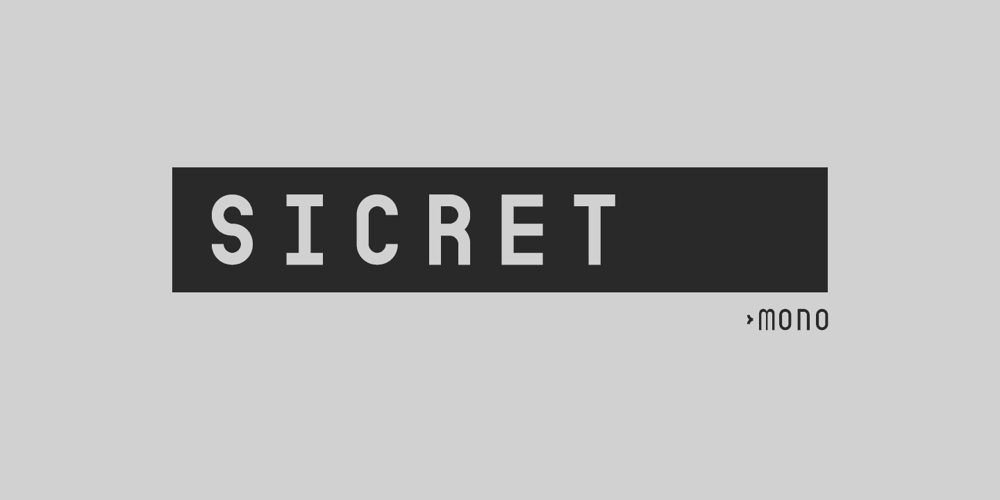
Sicret Mono
Sicret Mono font
Sicret Mono Font Family was designed by Måns Grebäck and published by Mans Greback. Sicret Mono contains 9 styles and family package options. Sicret Mono is a monospaced and geometric typeface family. It was drawn by Måns Grebäck in 2020, and was created by following a strict mathematical pattern consisting of only two basic shapes, in four different combinations, set on a 2 by 3 grid. The resulting product is a font with a serious and solid character, with an official look while yet going towards sci-fi because of its digital nature. The family consists of nine weights: Thin, Extra Light, Light, Regular, Medium, Semi Bold, Bold, Extra Bold and Black. The range of weights makes it very adaptable, and all the weights works very well together to give a sentence or graphic tone and emphasization.As Sicret Mono is a font with over 850 glyphs, it is guaranteed to contain all characters you’ll ever need, including all punctuation and numbers. It has a very extensive lingual support, covering Greek, Cyrillic, Hebrew as well as European and American languages.